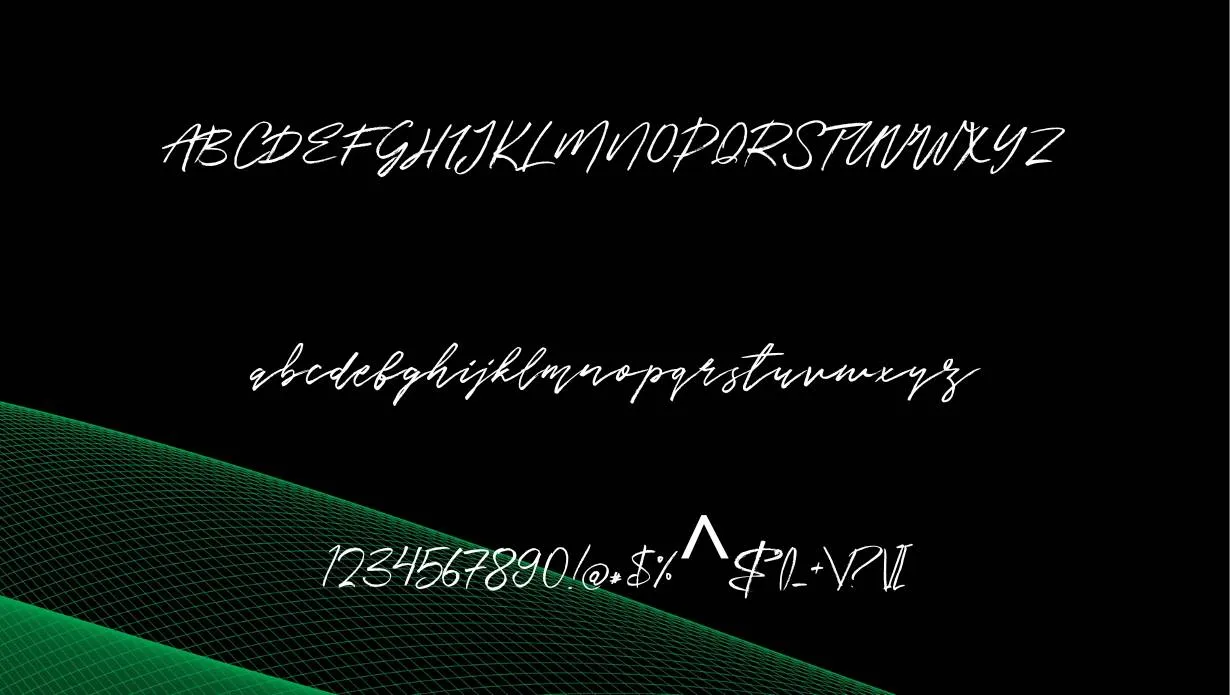
Balancing elegance and readability with its stylish and legible script, the Riverside Avenue font is frequently used in invitations, branding, or any design seeking sophistication and approachability.
| Name | Riverside Avenue Font |
| Designer | Mats-Peter Forss |
| Style | SCript |